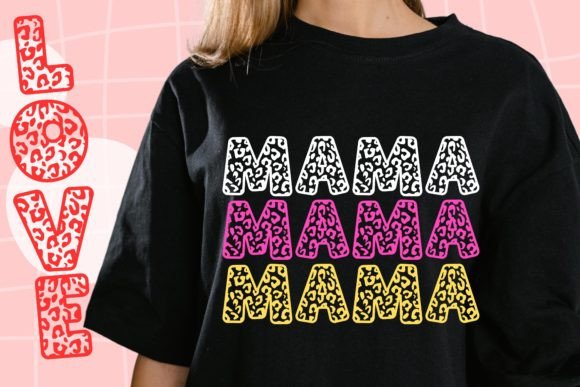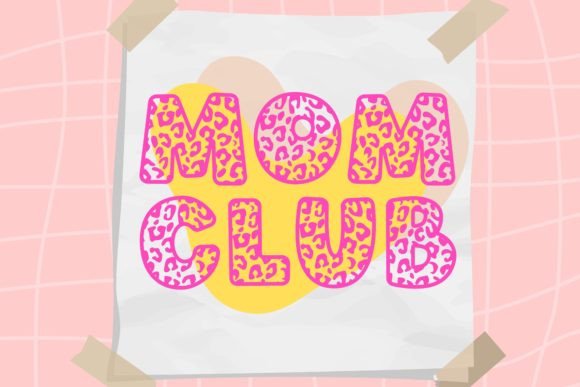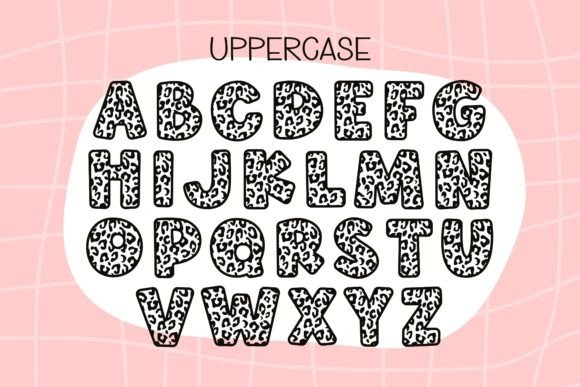
Leo Font Font
About the Leo Font Font
Introducing the Leo Font Font, a beautifully crafted typeface designed to elevate your creative projects. Leopard is designed in a cute and adorable decorative font style. It would be an awesome additin to your lovely designs and also your child-related projects such as back to school, birthday party decorations and so much more.
Leo Font’s playful, rounded forms make it ideal for children’s books, branding for toys or sweet treats, and playful marketing materials. It works well in headlines, short text blocks, and logos, adding a touch of whimsy and approachability. However, its decorative nature makes it less suitable for body text or UI elements where readability is paramount. Avoid using it for lengthy paragraphs or applications requiring high levels of legibility.
Pairing Leo Font with a clean sans-serif like Open Sans for body copy creates a balanced contrast, allowing the playful headline to stand out without overwhelming the reader. For a more sophisticated feel, consider pairing it with a classic serif like Garamond or a more modern geometric sans-serif like Montserrat. These pairings offer visual harmony and enhance Leo Font’s inherent charm.
Leo Font’s overall personality is undeniably cheerful and friendly, making it a great choice for brands and projects targeting a young or family-oriented audience. Its expressive forms create a sense of fun and approachability.
Leo Font Font Usage Examples
Leo Font Font Example